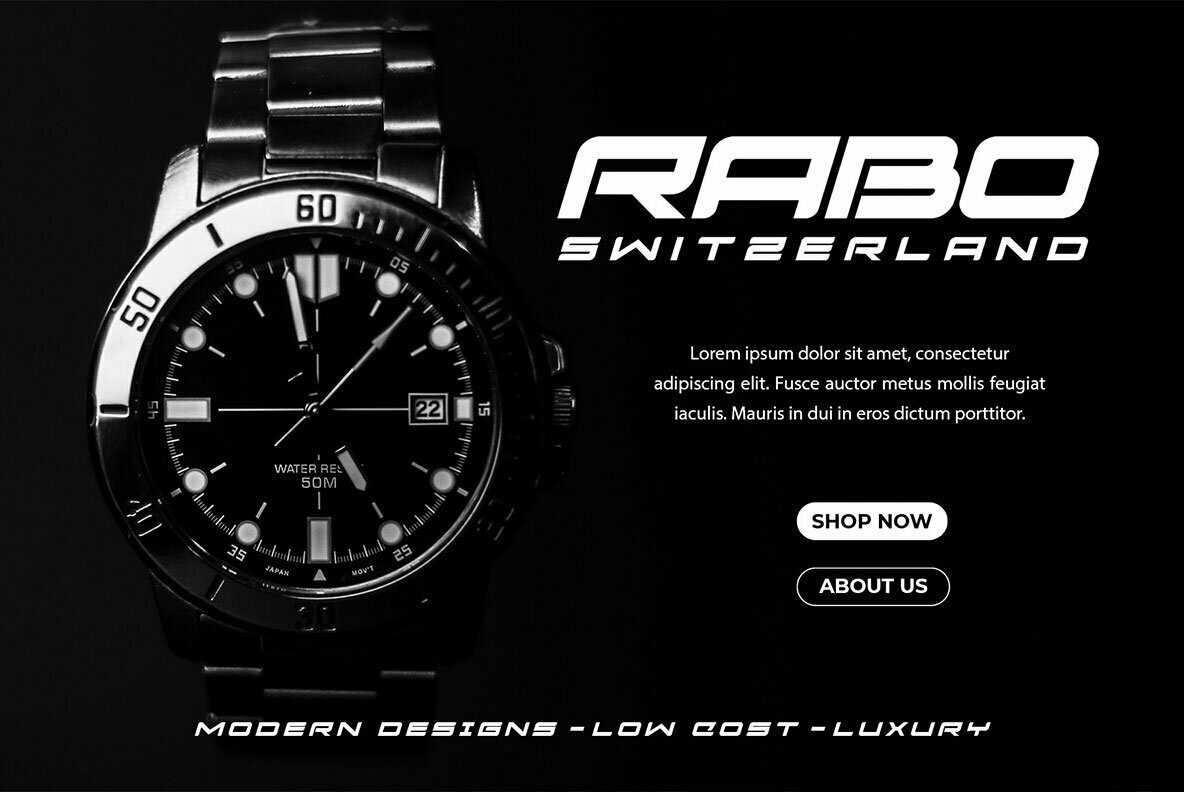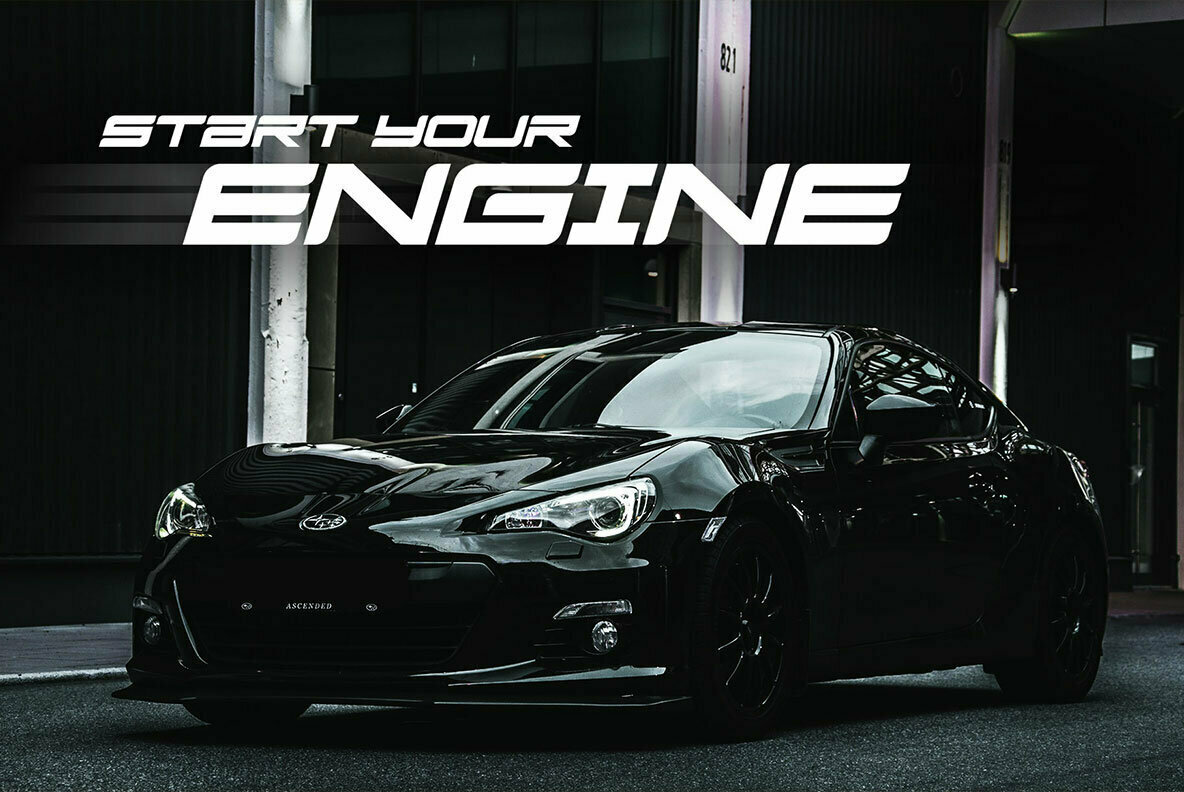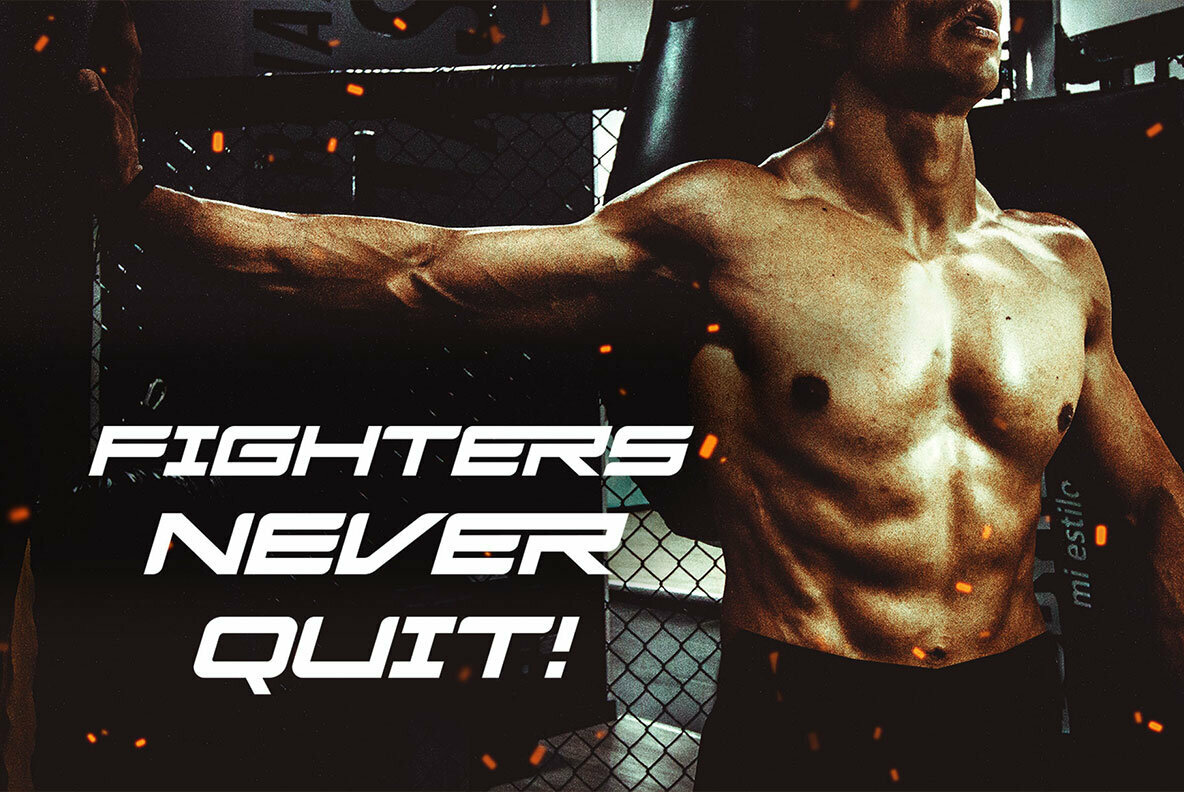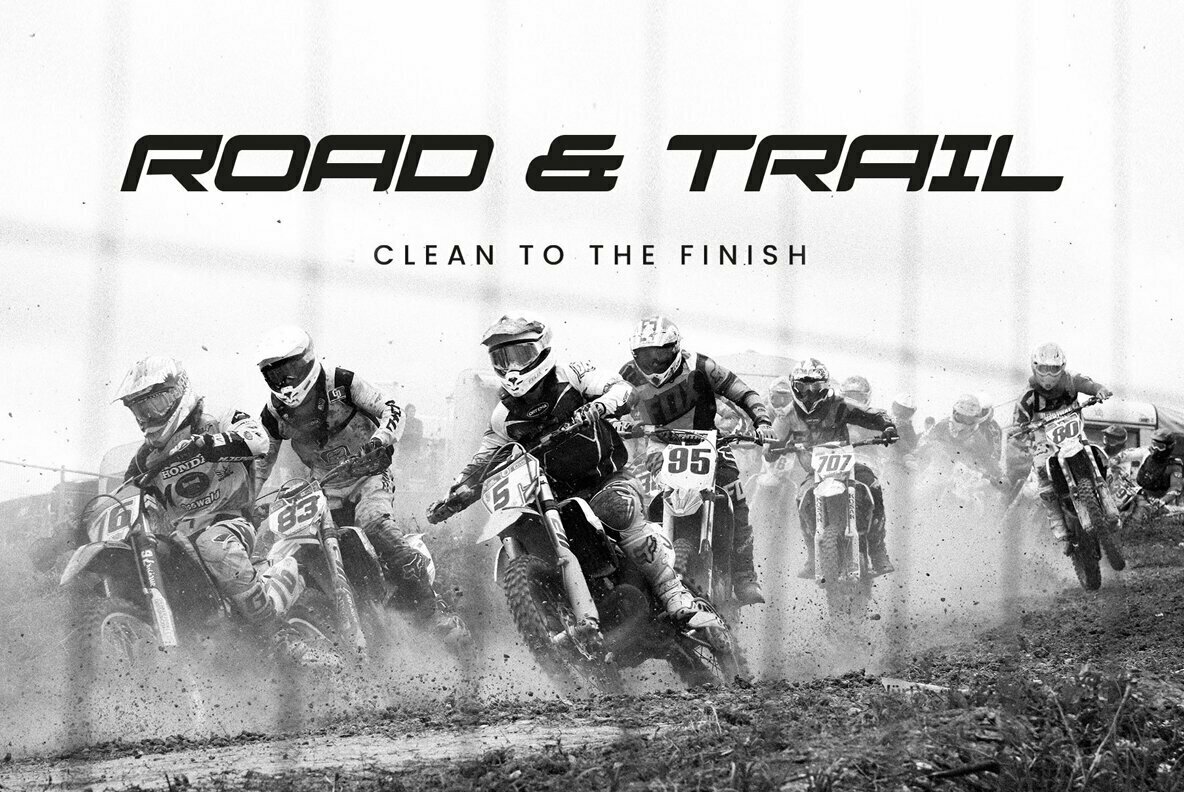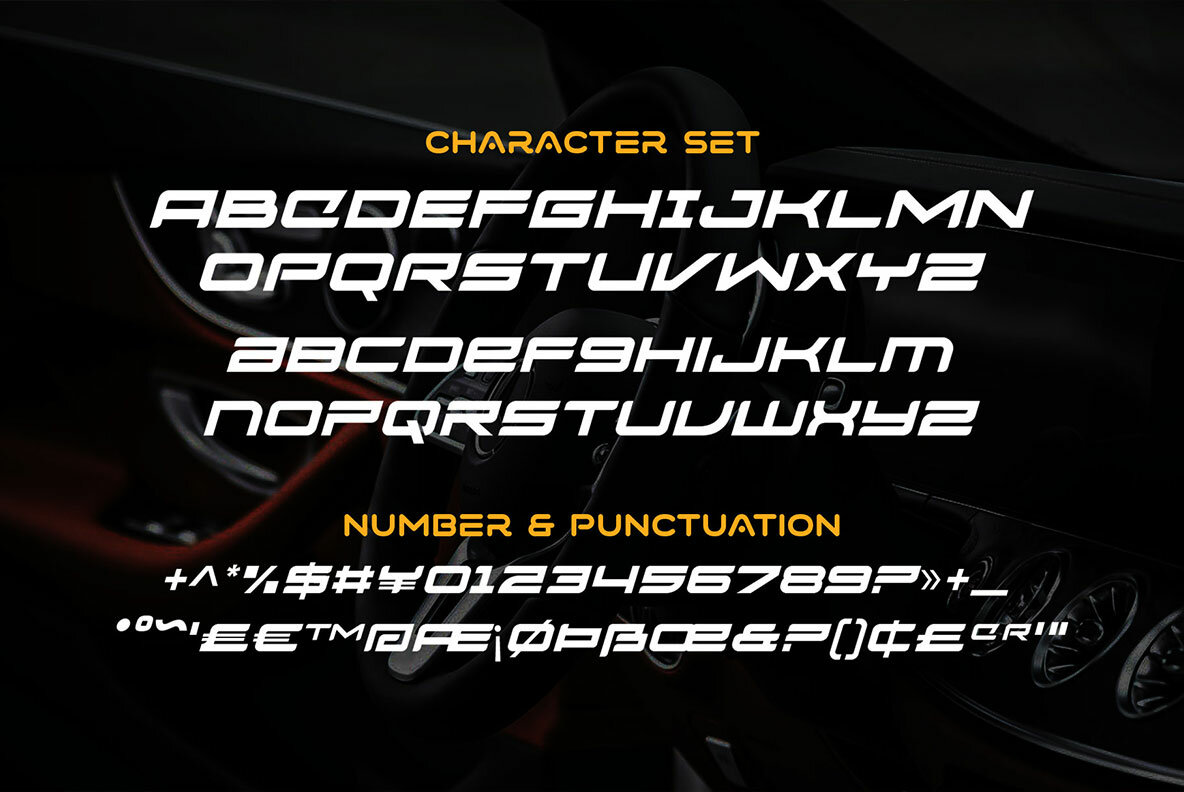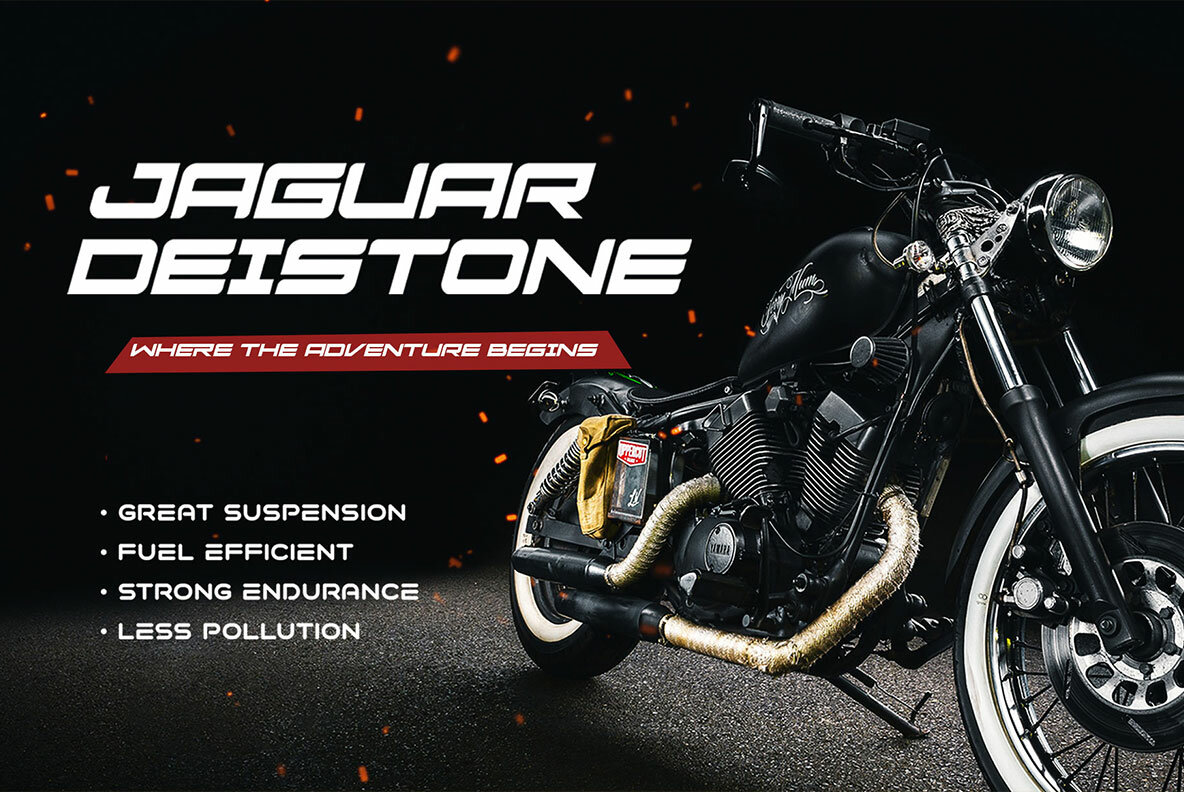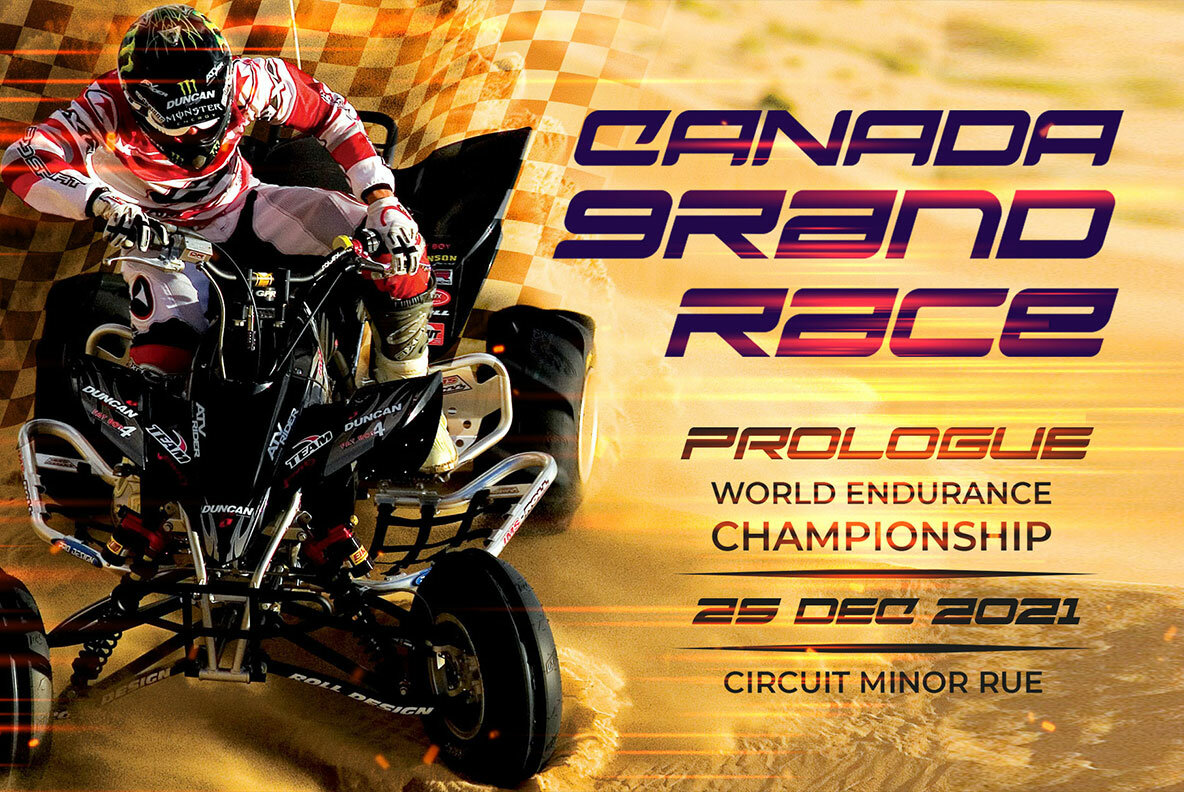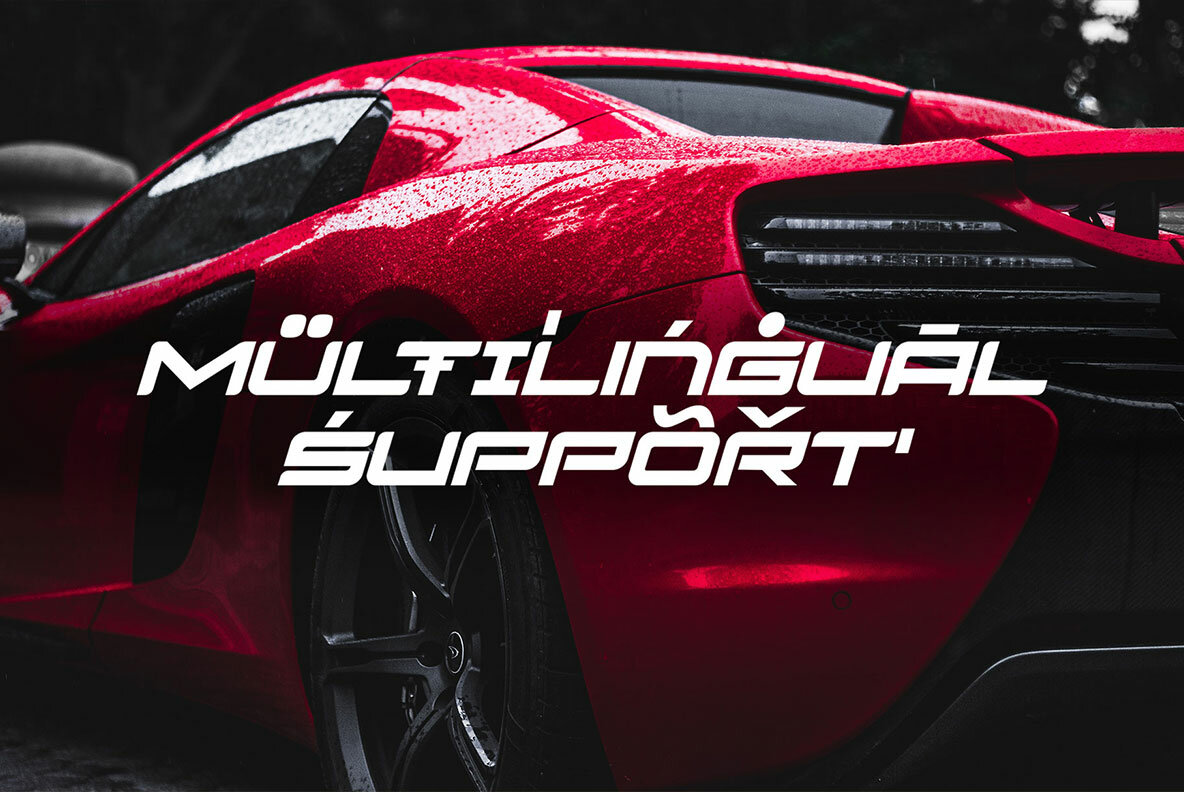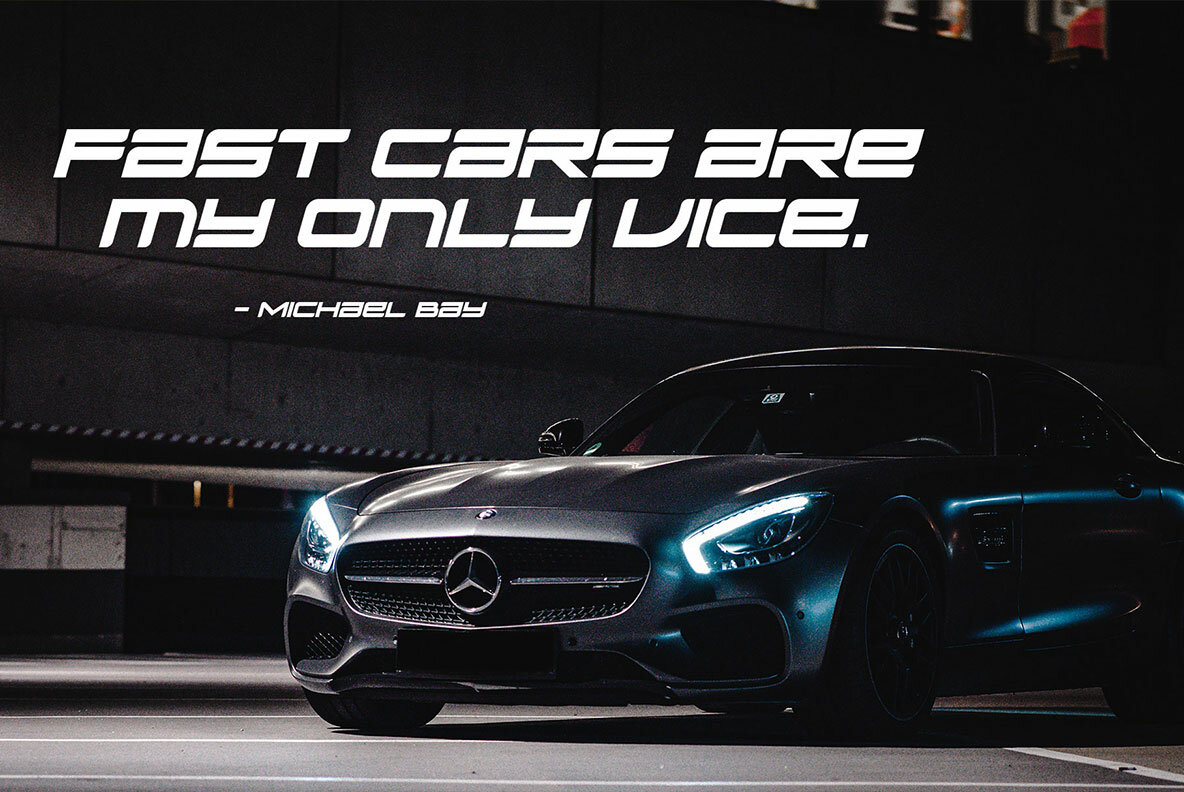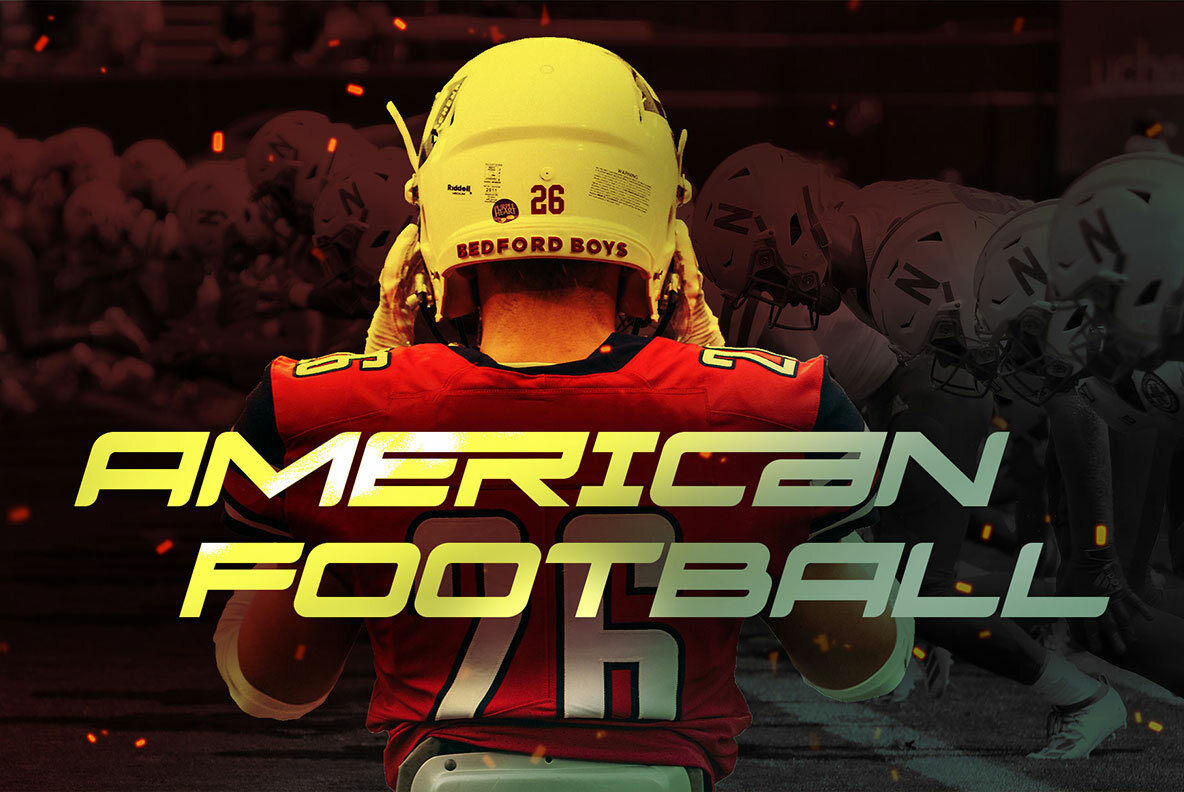
Siegra Font
Siegra Regular
Siegra seamlessly blends the powerful allure of automotive aesthetics with a touch of elegance and a futuristic edge. This unique techno font stands out with its versatile appeal, making it an impeccable choice for a variety of design projects. The letterforms are wide, sharp, and curvy, infused with energy that boosts confidence in your designs. Whether you're creating posters, branding, campaigns, logos, keychains, stickers, apparel, or even automotive designs, Siegra adapts effortlessly to your needs. Features:Siegra: Futuristic Techno Font for Modern Designs